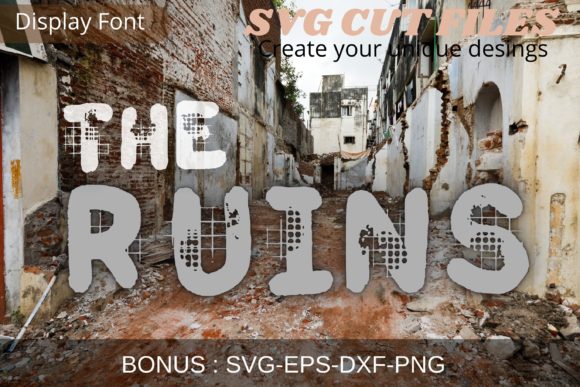
The Ruins Font
Step into the depths of forgotten ruins and unearth the chilling beauty of The Ruins Font, a display font that will cast an eerie spell over your designs. As if etched into crumbling stone, this font's unique sketchiness and unsettling elegance evokes the whispers of ancient secrets and the haunting allure of the unknown.
Indulge in the versatility of The Ruins Font, a literary phantom that seamlessly adapts to a myriad of Halloween-themed creations. From the chilling depths of blog posts to the enigmatic allure of logos and branding, The Ruins Font weaves its haunting presence, captivating audiences with its unique character.
Envision invitations adorned with the intricate strokes of The Ruins Font, inviting guests to a night of spooky enchantment. Greeting cards adorned with its ghostly touch become portals to a realm of mystery and intrigue. Planners and photo albums imbued with its eerie presence transform into treasured keepsakes that immortalize the spine-tingling memories of Halloween's embrace.
Unleash The Ruins Font upon your designs and witness the transformation as your creations transcend the ordinary, morphing into haunting masterpieces that will send shivers of delight down the spines of all who behold them. Allow its shadowy elegance to guide your artistic vision, leading you to the depths of creativity where the macabre and the mesmerizing intertwine.
The Ruins Font is more than just a collection of letters; it's a gateway to a world of eerie enchantment, where the boundaries of imagination blur and the whispers of the unknown echo through your designs. Embrace its haunting allure and let your creativity soar to spine-chilling heights.